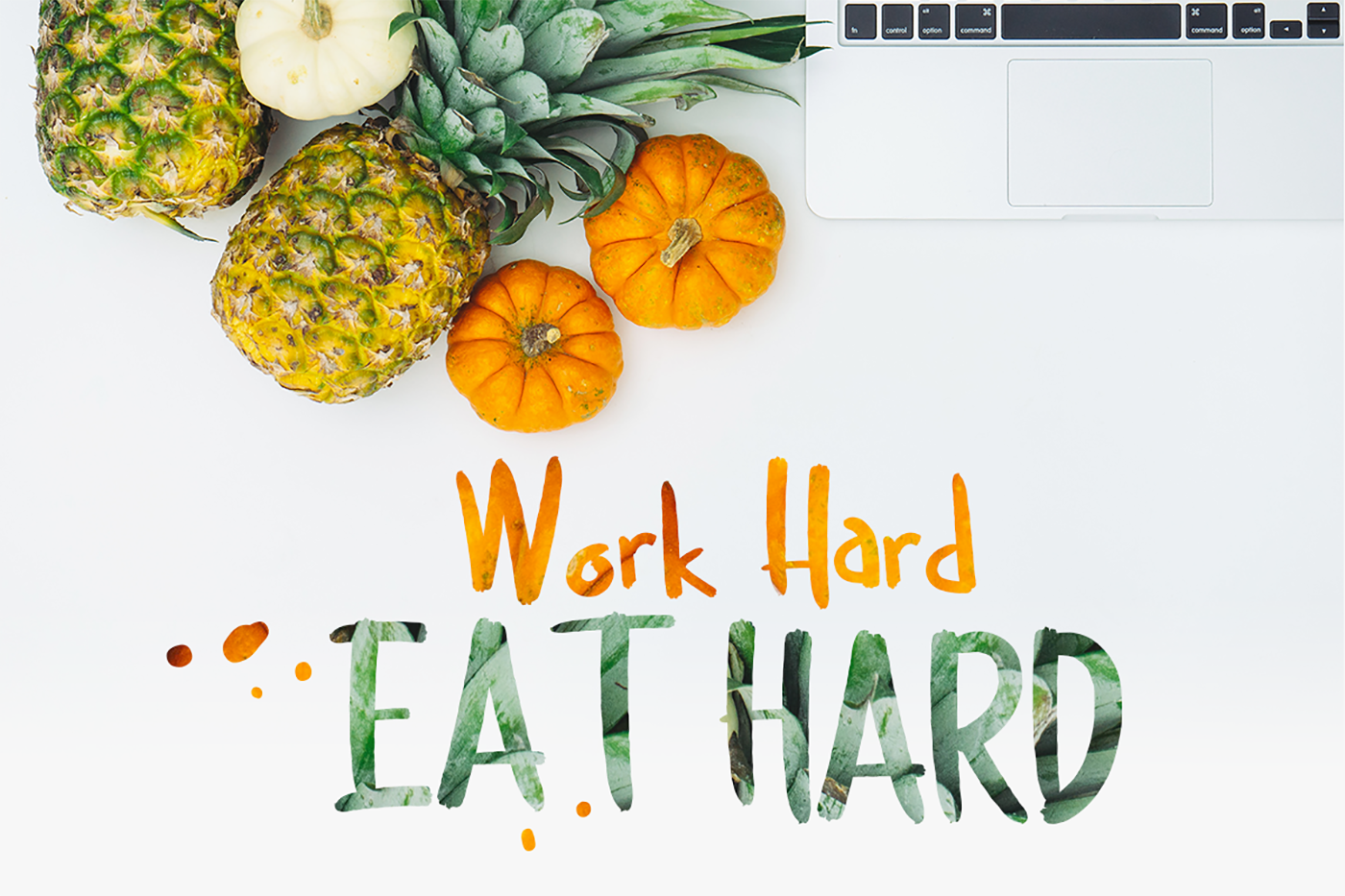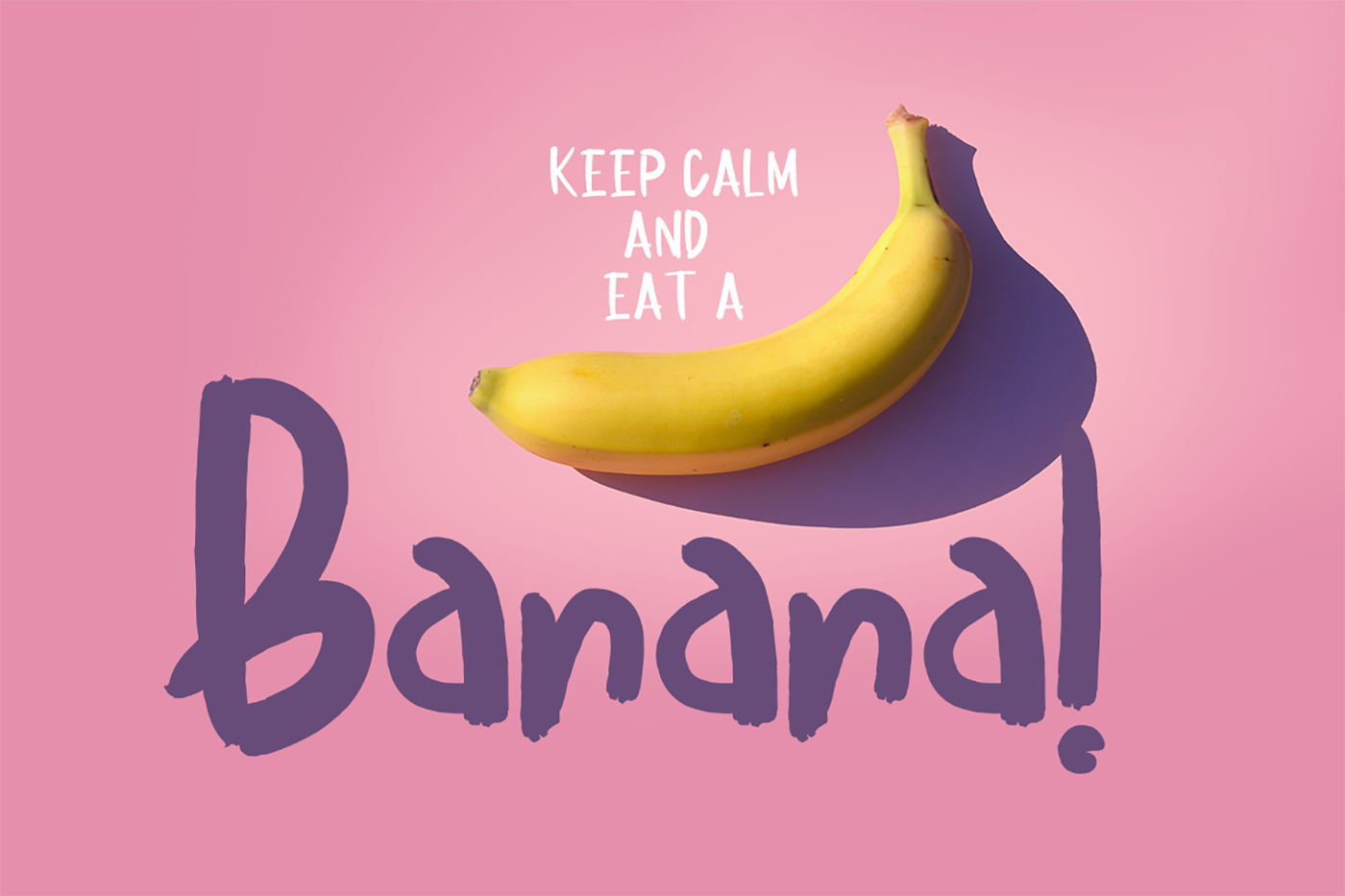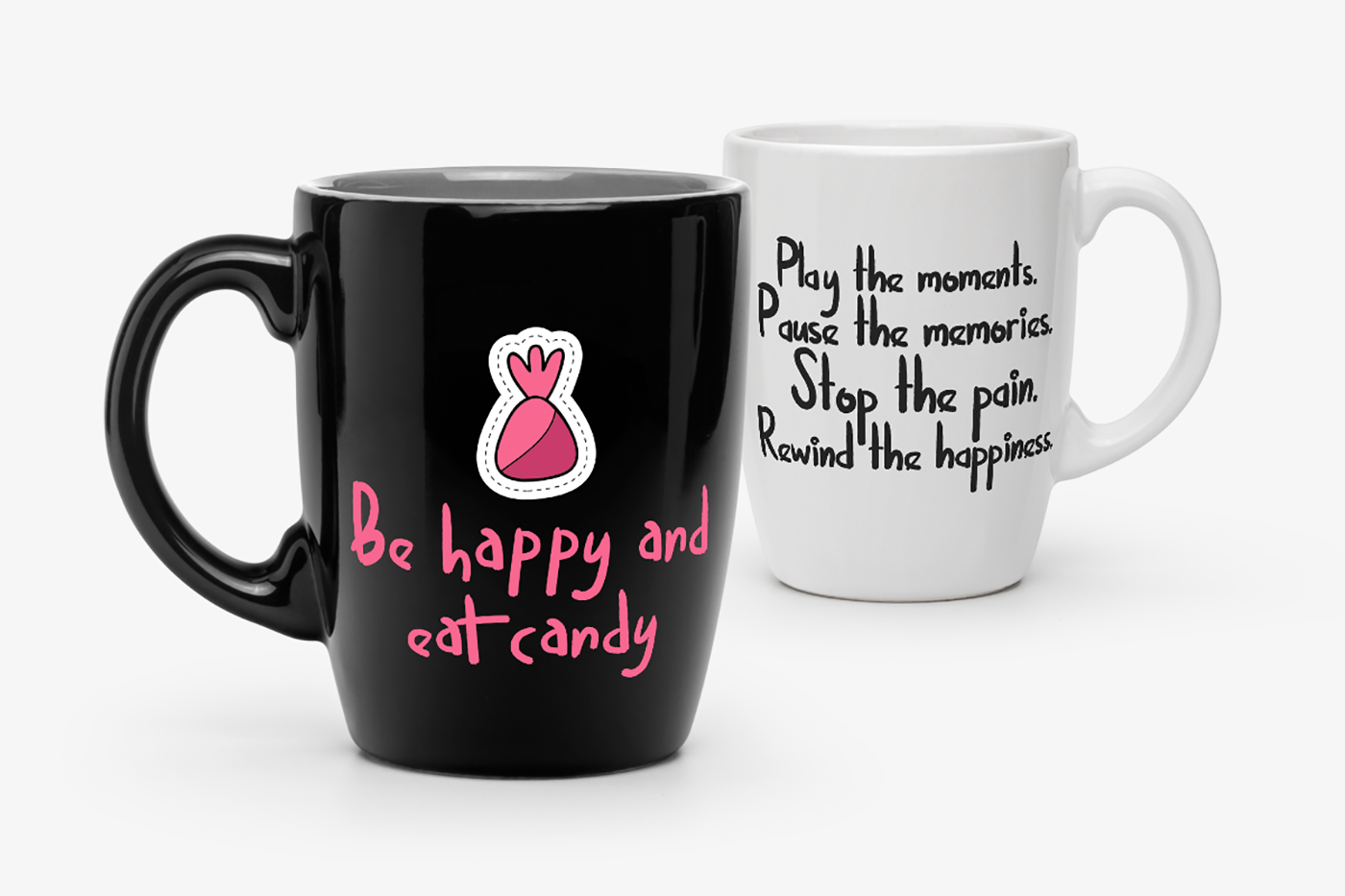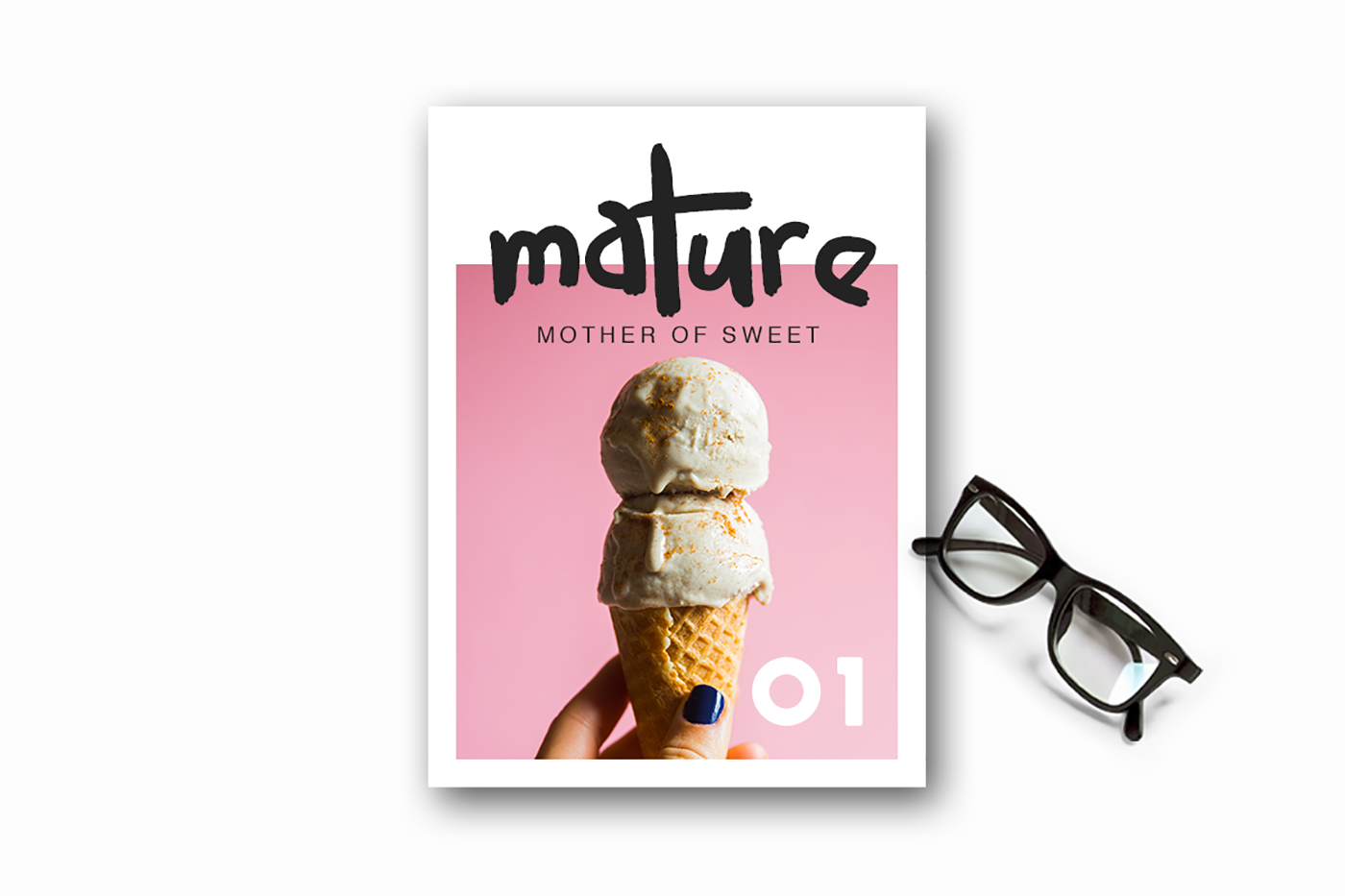
Introducing the BigMom Font Duo: Elevate Your Designs with a Fun Script and Gorgeous Sans
Are you tired of using the same old fonts in your designs? Look no further! The BigMom Font Duo is here to take your creative projects to the next level. This fantastic duo consists of a fun script and a gorgeous sans, making it the perfect combination for adding great effects to your designs. In this article, we’ll dive into the world of BigMom Font and explore its features, benefits, and uses.
The Perfect Pairing: Fun Script and Gorgeous Sans
The BigMom Font Duo is a match made in heaven. The fun script font is perfect for adding a touch of personality to your designs, while the gorgeous sans font provides a clean and modern look. Together, they offer endless possibilities for creative expression. Whether you’re a designer, crafter, or DIY enthusiast, this font duo is sure to inspire you.
Key Features of BigMom Font
- Fun Script Font: The script font in the BigMom Font Duo is playful, yet elegant. Its unique letterforms and flowing curves make it perfect for creating eye-catching headlines, titles, and quotes.
- Gorgeous Sans Font: The sans font is clean, modern, and highly legible. Its simple, yet sophisticated design makes it ideal for body text, descriptions, and captions.
- Versatile: The BigMom Font Duo is suitable for a wide range of design projects, from branding and advertising to crafting and DIY tutorials.
Benefits of Using BigMom Font
So, why choose the BigMom Font Duo for your designs? Here are just a few benefits:
- Adds Visual Interest: The unique combination of script and sans fonts adds visual interest to your designs, making them stand out from the crowd.
- Enhances Creativity: The BigMom Font Duo inspires creativity and experimentation, allowing you to try new things and push the boundaries of design.
- Perfect for Branding: The font duo is ideal for creating brand identities, including logos, business cards, and marketing materials.
- Great for Crafting and DIY: The BigMom Font Duo is also perfect for crafters and DIY enthusiasts who want to add a personal touch to their projects.
Examples of BigMom Font in Action
Here are a few examples of how you can use the BigMom Font Duo in your designs:
- Branding and Advertising: Use the script font for headlines and titles, and the sans font for body text and descriptions.
- Crafting and DIY: Use the BigMom Font Duo to create personalized signs, banners, and decorations for parties, events, and special occasions.
- Social Media Graphics: Use the font duo to create eye-catching social media graphics, including Facebook posts, Instagram stories, and Pinterest pins.
| Font Name | BigMom Font |
| Author | Factory738 |
The BigMom Font Duo is a versatile and creative tool that can elevate your designs to new heights. With its fun script and gorgeous sans fonts, this duo offers endless possibilities for adding great effects to your designs. Whether you’re a designer, crafter, or DIY enthusiast, the BigMom Font Duo is sure to inspire you. So why wait? Download the BigMom Font Duo today and start creating amazing designs!